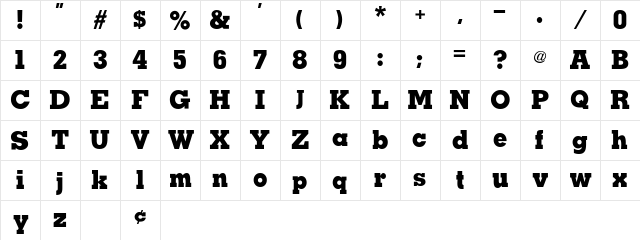
TaralaneSSK Bold
Design Context for TaralaneSSK Typeface
TaralaneSSK takes a measured approach to typography — its balanced proportions and neutral character make it a reliable workhorse for both digital and print work. Its bold stroke weight gives it real presence on the page.